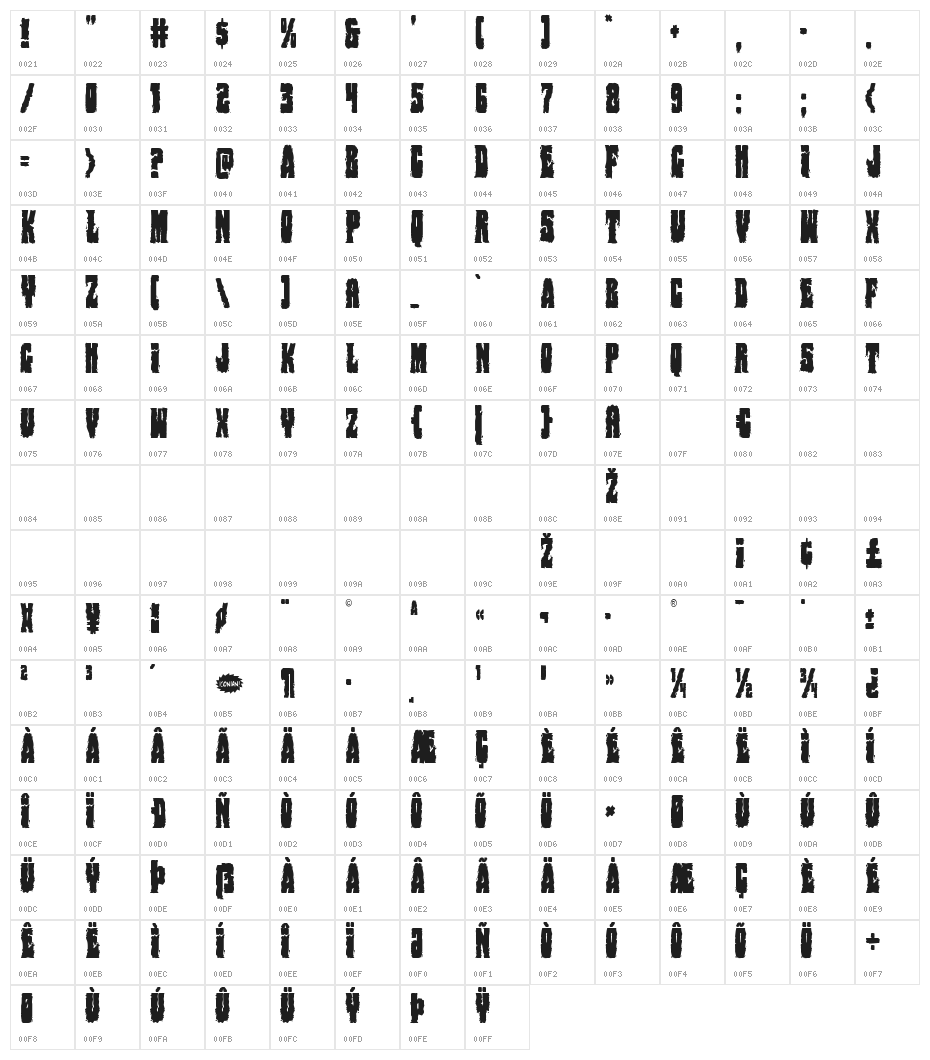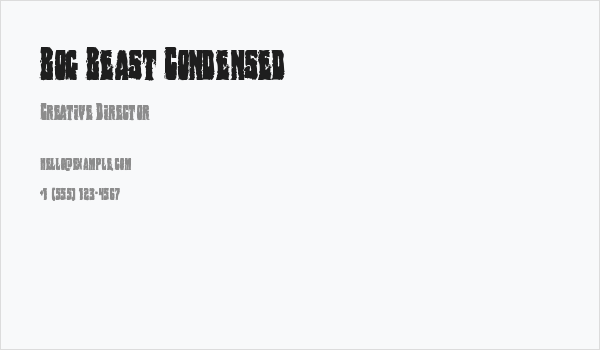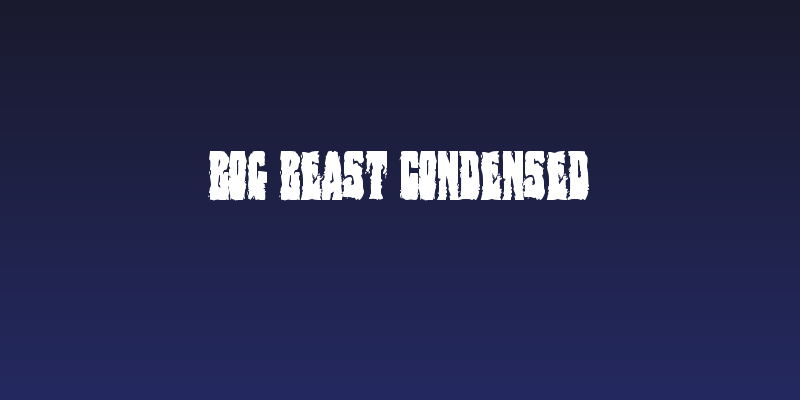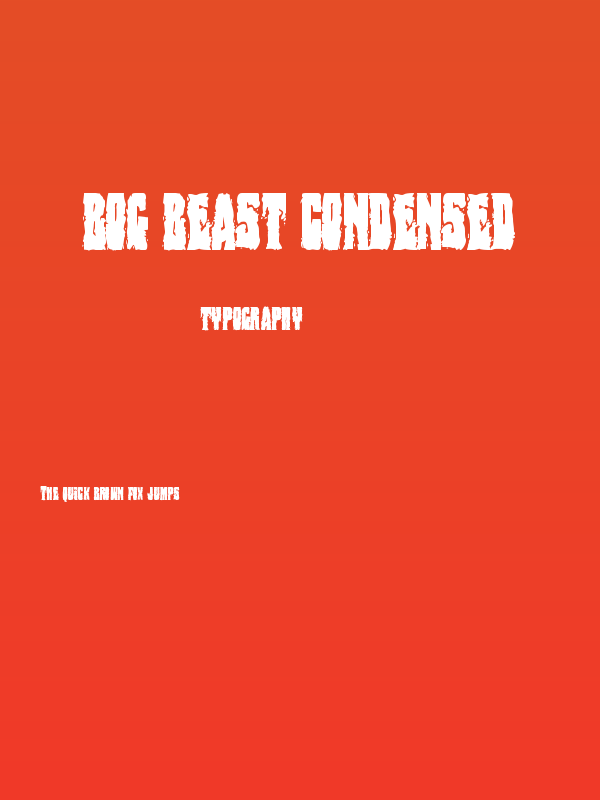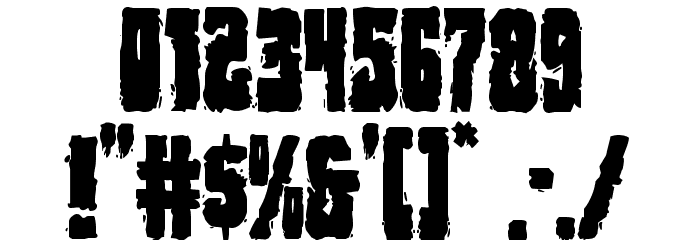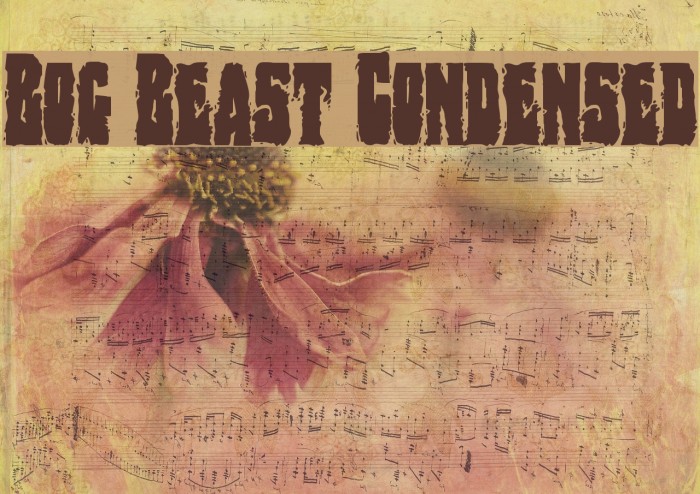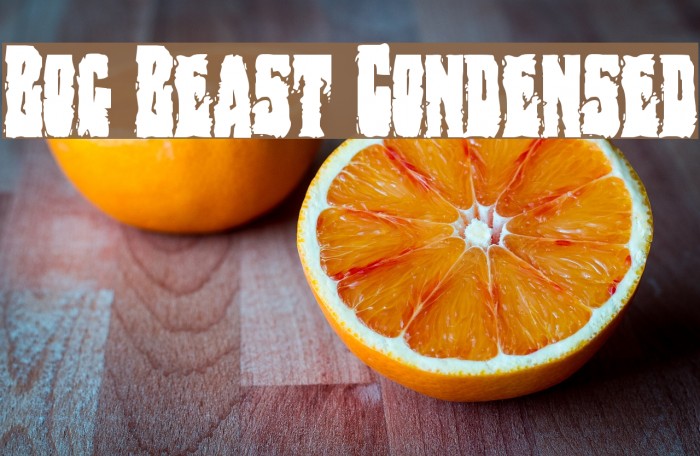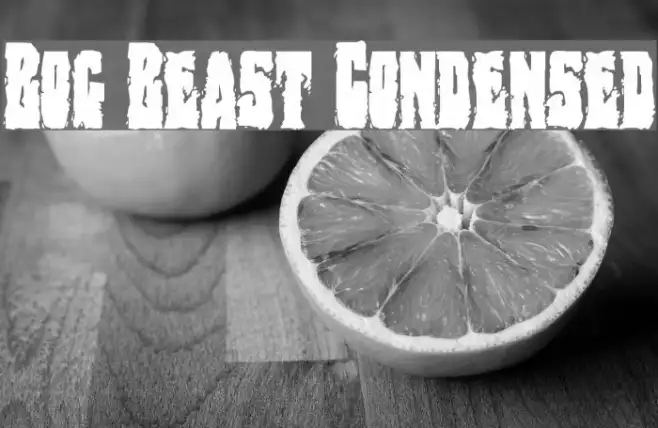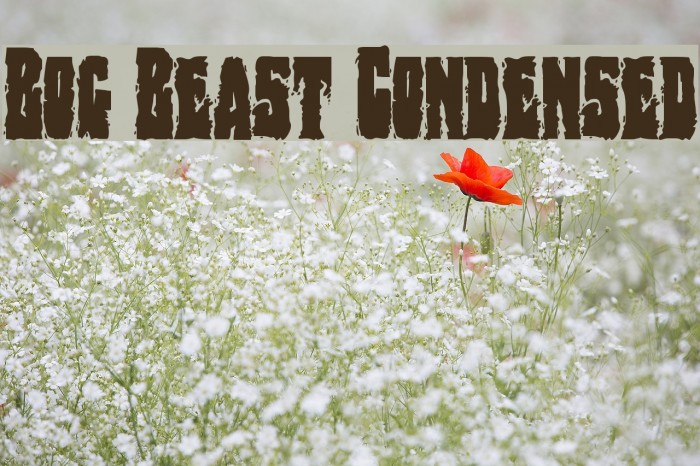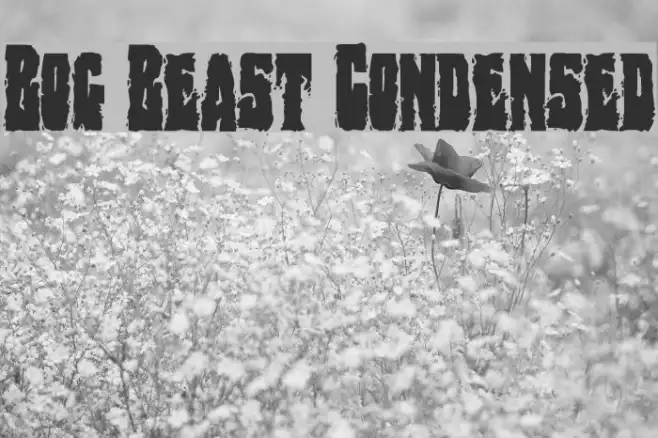
Bog Beast Condensed Font
Bog Beast Condensed Description
This font features a rugged, distressed appearance with a bold and impactful presence. Each character is heavily textured, giving it a worn and weathered look, reminiscent of eroded surfaces or rough natural elements. The condensed style enhances its dramatic effect, making it ideal for attention-grabbing designs. The uppercase and lowercase letters maintain a consistent style, with jagged edges and irregular shapes that add to its unique character. Numbers and special characters follow the same aesthetic, ensuring a cohesive look across all text elements.
| Proposed Projects | Ideal for horror-themed posters, edgy branding, or any design requiring a bold, gritty aesthetic. |